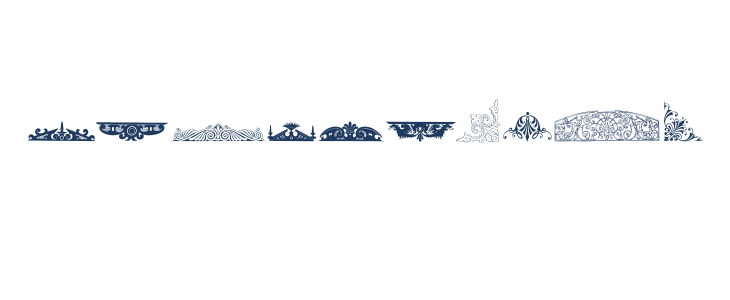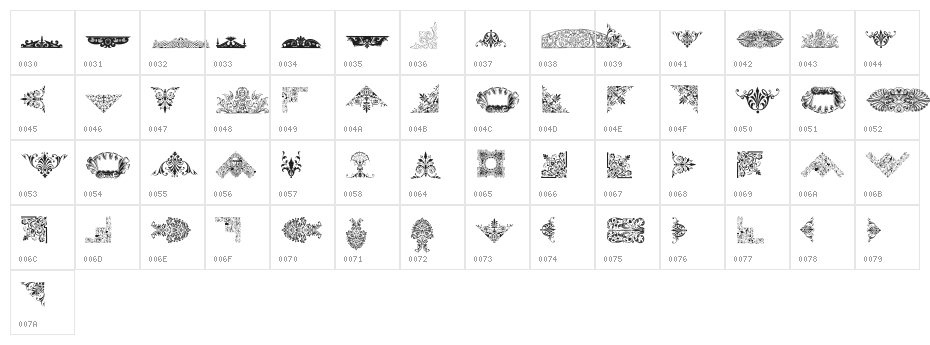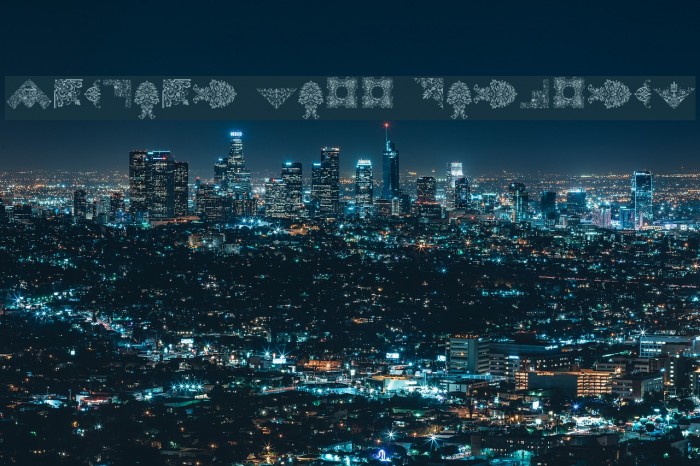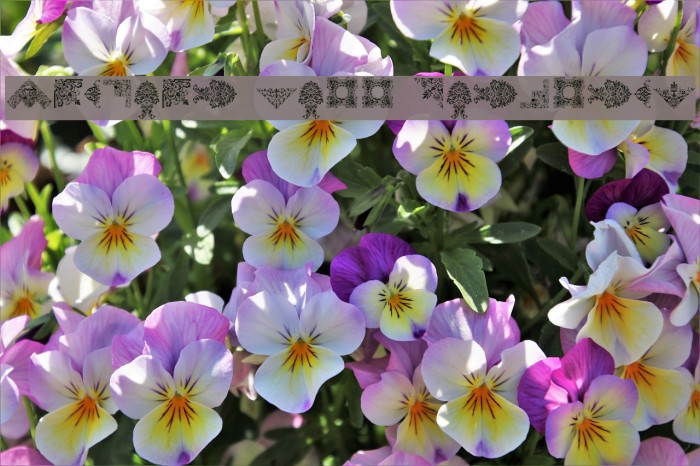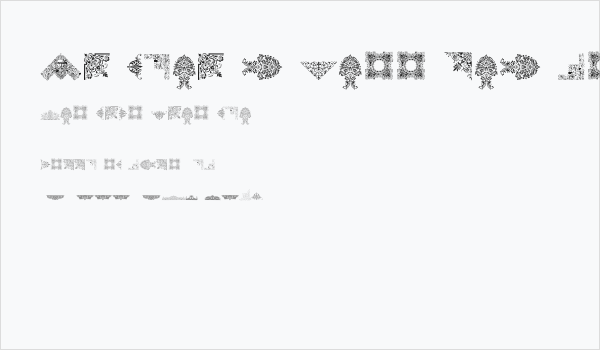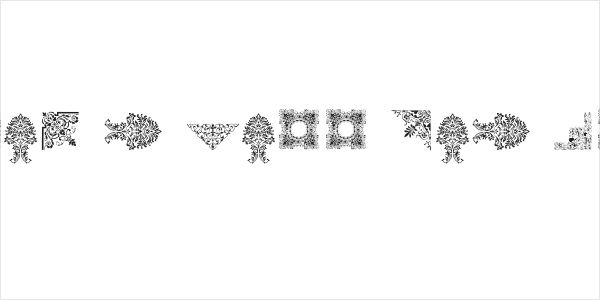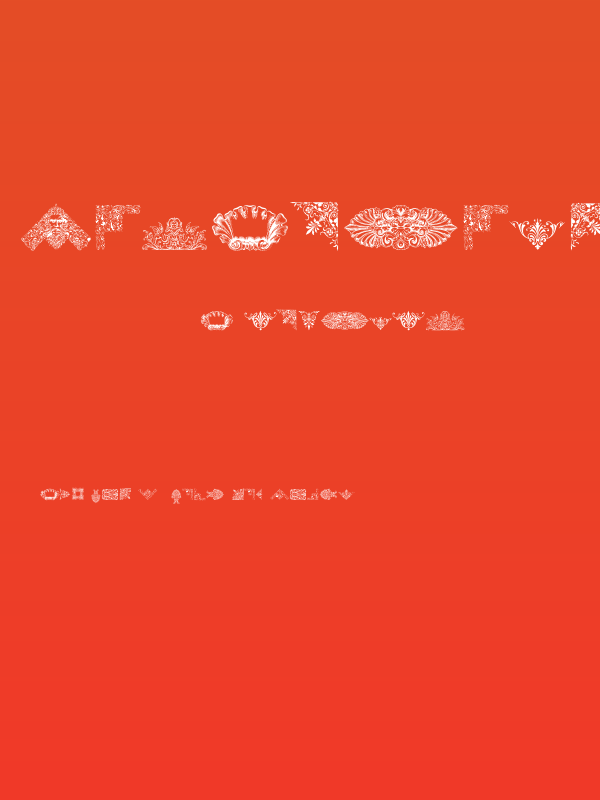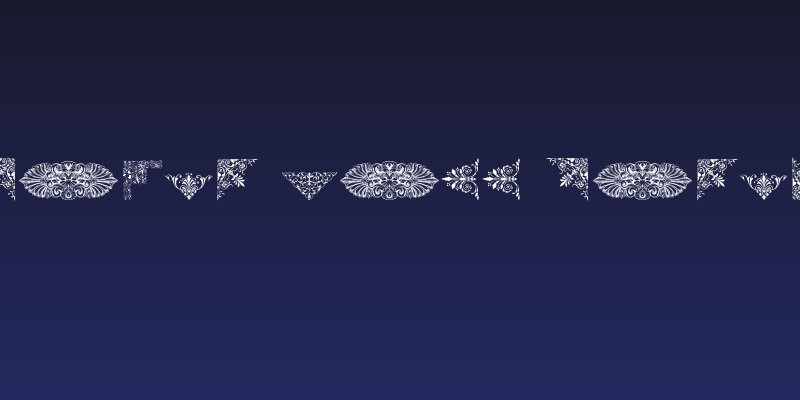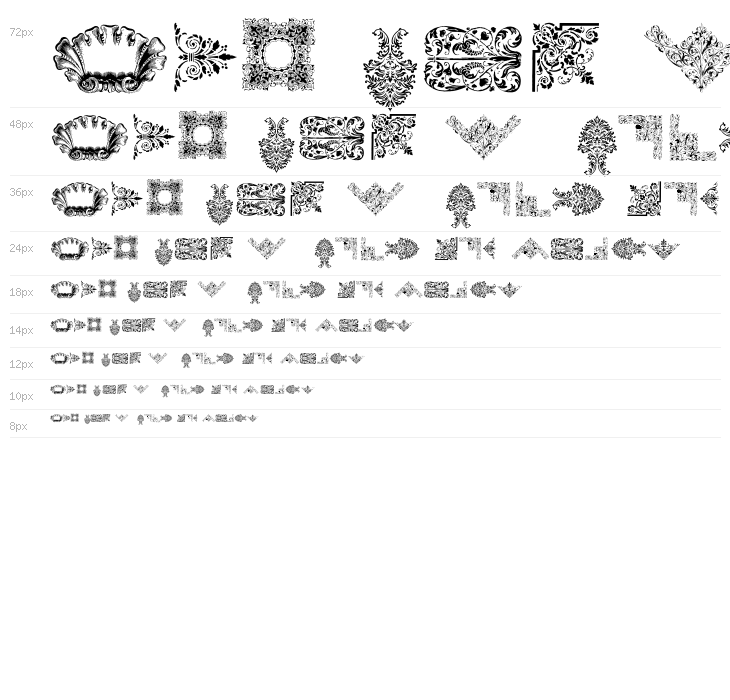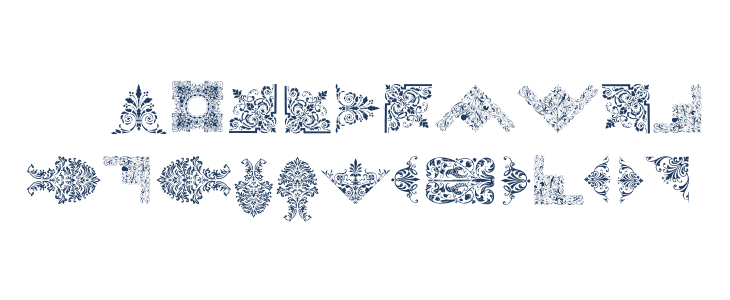
Victorian Free Ornaments Font
Victorian Free Ornaments Description
Highly decorative set of Victorian-style ornamental glyphs featuring intricate floral and scrollwork patterns, designed for embellishment rather than standard text communication.
| Overall Style | Victorian, Decorative, Vintage |
| Use Case | Ornaments, Borders, Decorative accents |
| Proposed Projects | Wedding invitations, certificates, decorative borders, vintage posters, book covers, packaging design. |